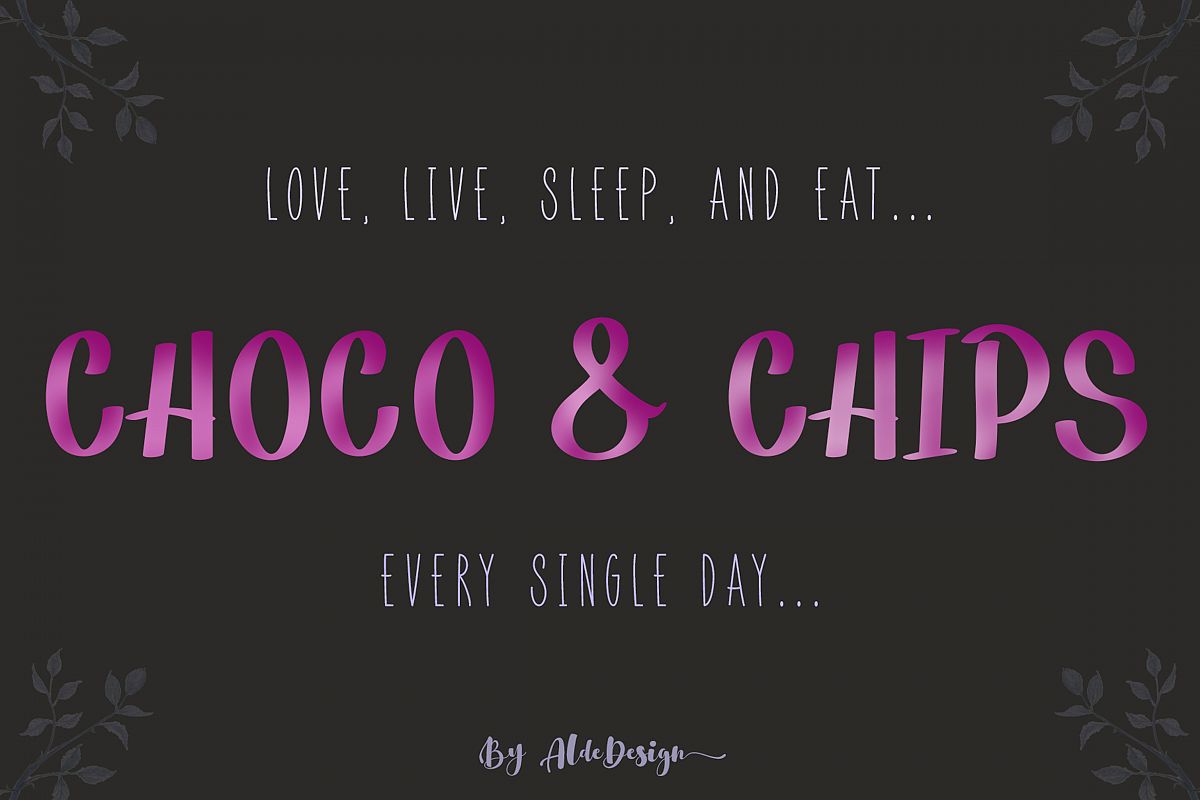
Choco & Chips Font
Choco & Chips is a stylish and playful font with an incredible feel. It will add a unique touch to any design project.
Choco & Chips  is the great choice for watermark on photography, signature or signature logo design, album cover, business card, quotes, and many other design project.
• Stylish handwritten style
• Special Ligatures